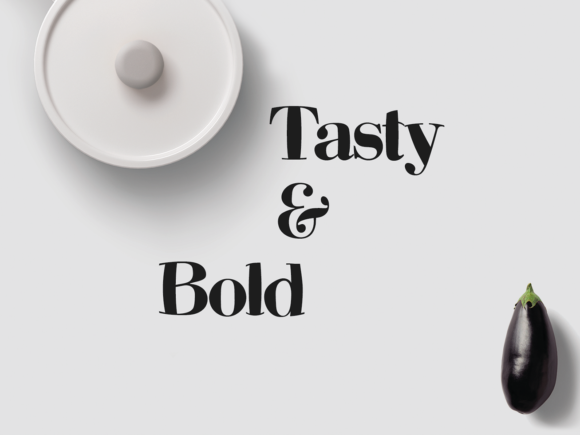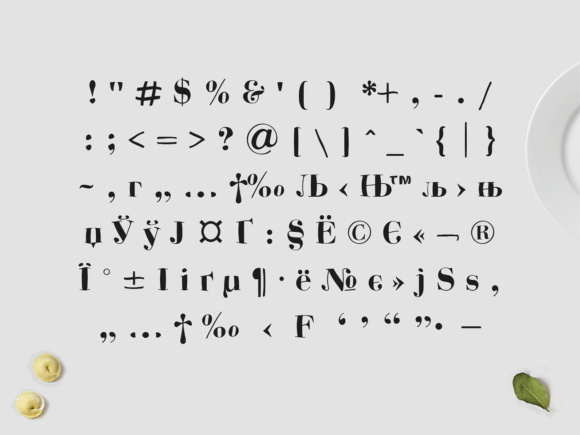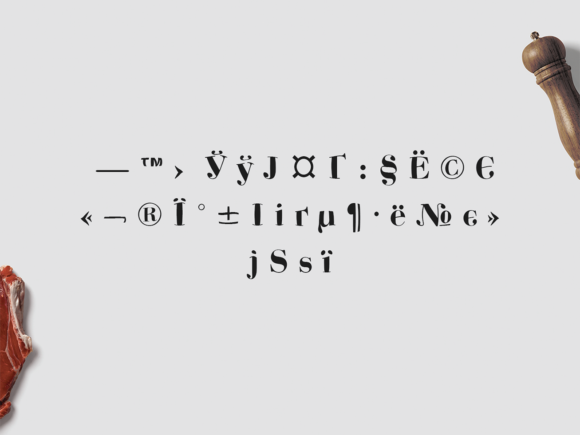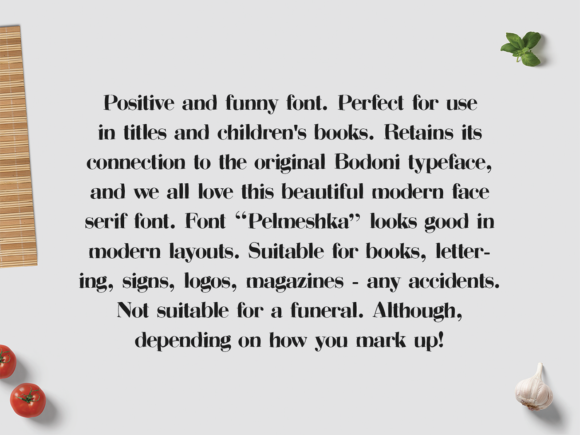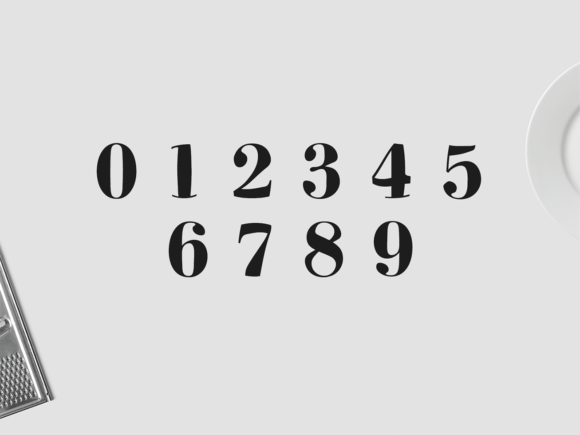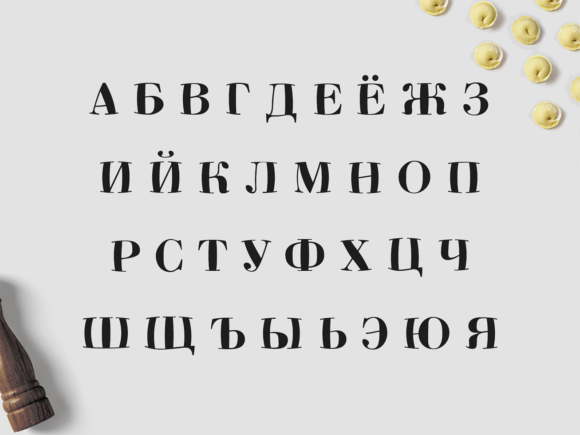
About Pelmeshka Font
Pelmeshka is a cute and funny font that might make you smile once you see it. Driven from Bodoni typeface, the font can be used in creating headings, titles, posters, kid books and more.